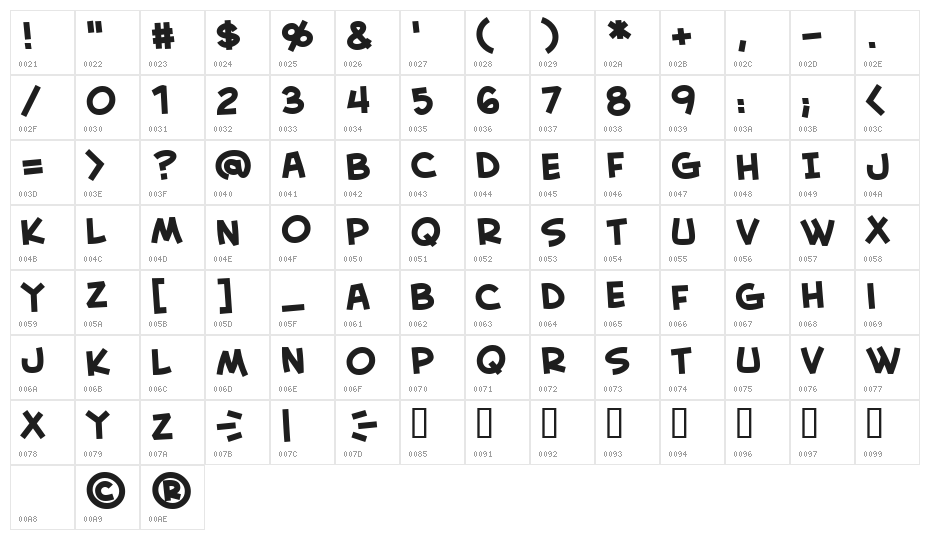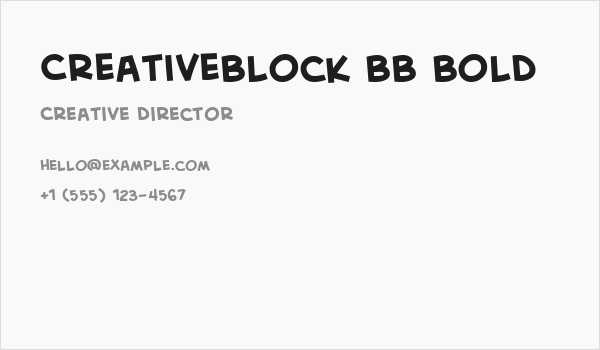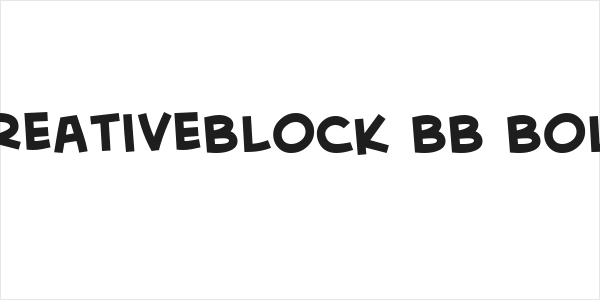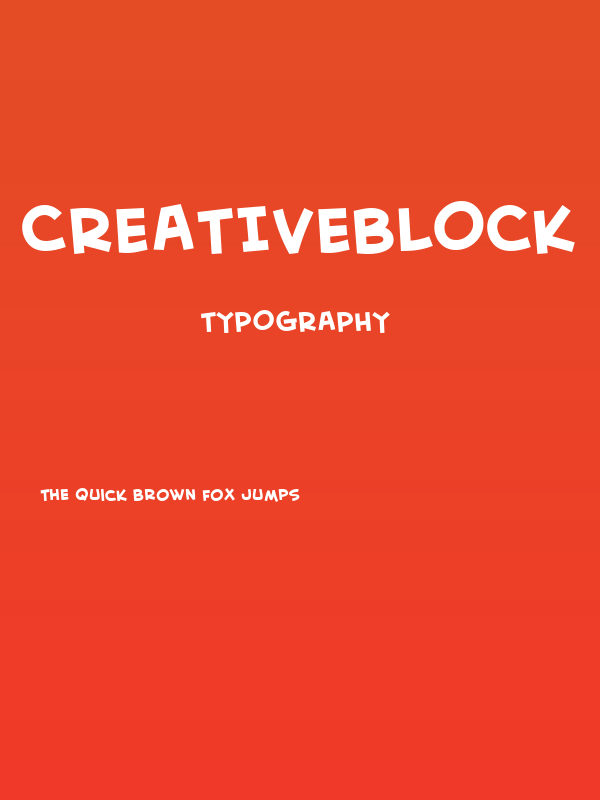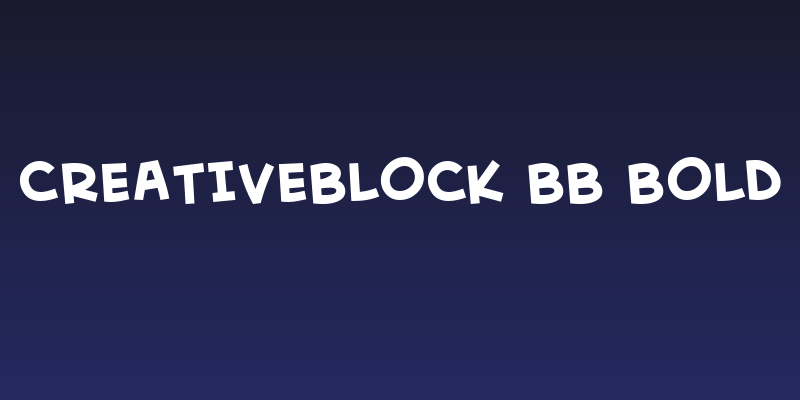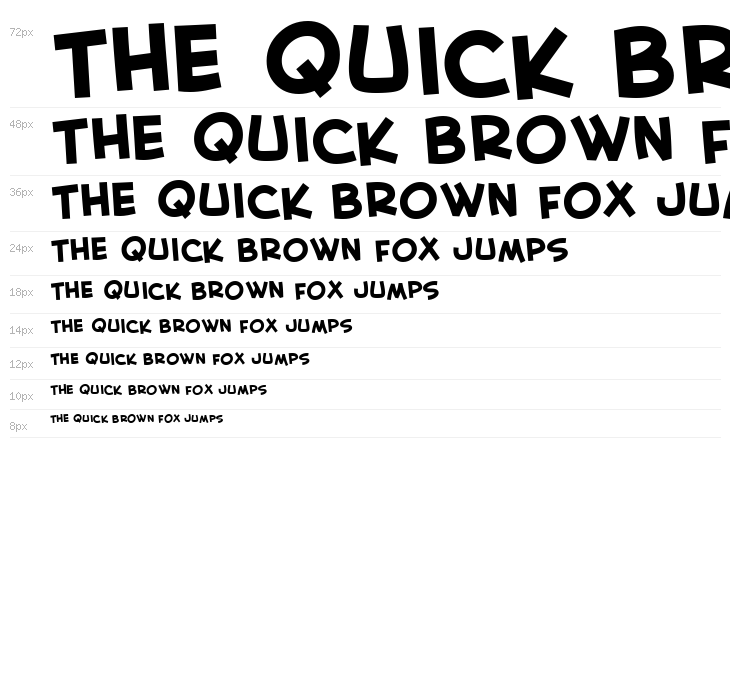
CreativeBlock BB Bold Font
CreativeBlock BB Bold Description
This font features a bold and playful style with a strong presence. The characters are slightly irregular, giving them a hand-drawn, whimsical appearance. The strokes are thick and consistent, contributing to its boldness. The letters have a slight tilt, adding to the dynamic and energetic feel. The overall design is informal and fun, making it suitable for creative and casual applications. The numbers and special characters maintain the same playful aesthetic, ensuring consistency across all glyphs.
| Overall Style | Playful, Whimsical, Informal |
| Proposed Projects | Ideal for children's books, comic strips, playful branding, and creative posters. |